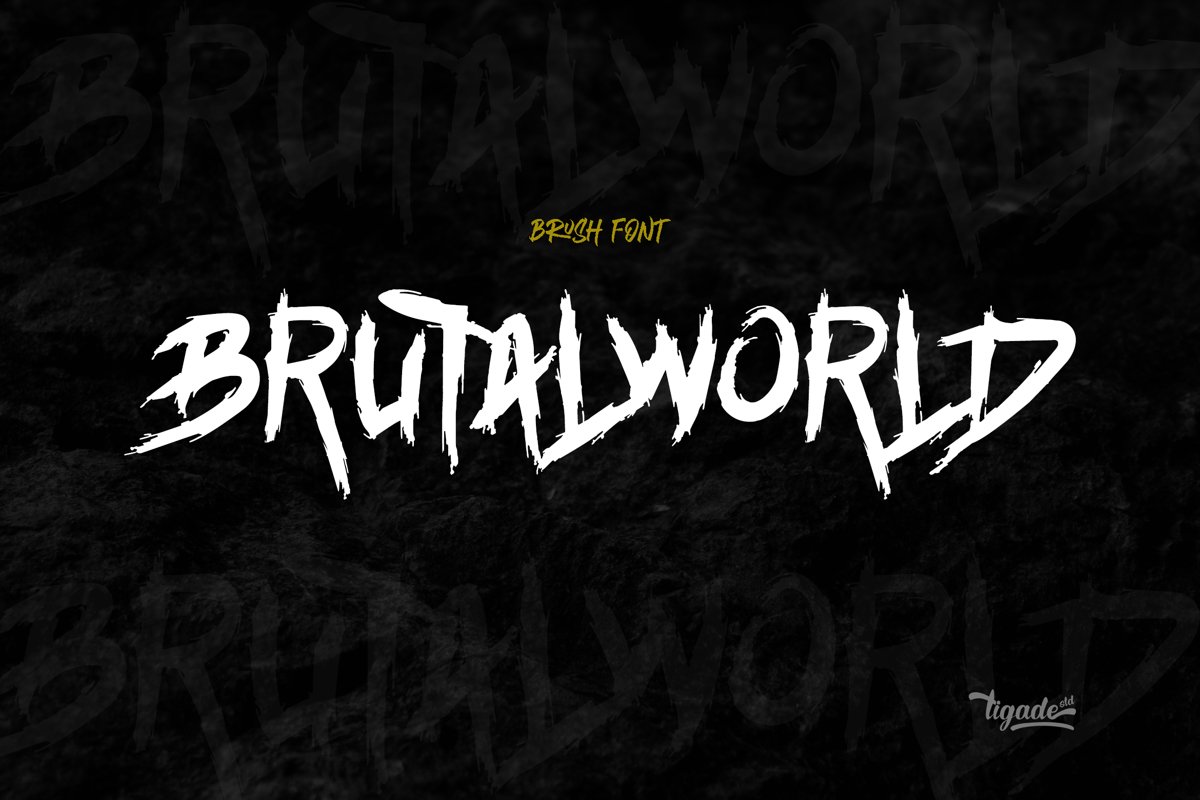
Brutalworld - Metal Grunge Font
Brutalworld
Brutalworld is a strong brush font that has unique characteristics. It is a very minimum display font that come with ALL CAPS, exclamation and question mark. This font is suitable for deathmetal theme, deathmetal logo design, clothing, logos, covers, posters or other designs with the theme Deathmetal. Other than that, it can be used for Horror or other general themes.It comes with Regular and Italic for: